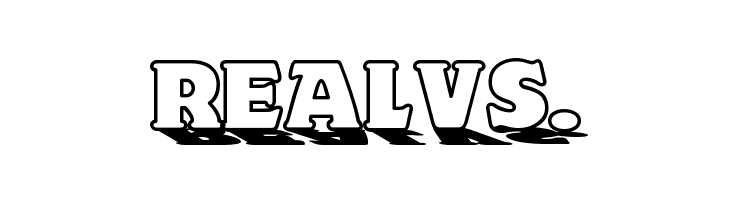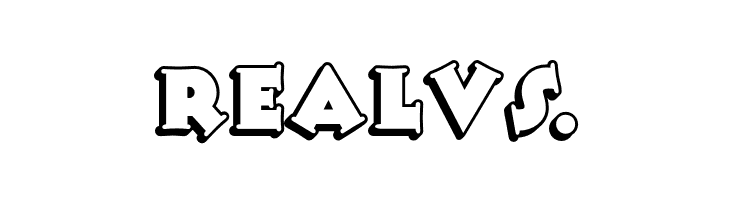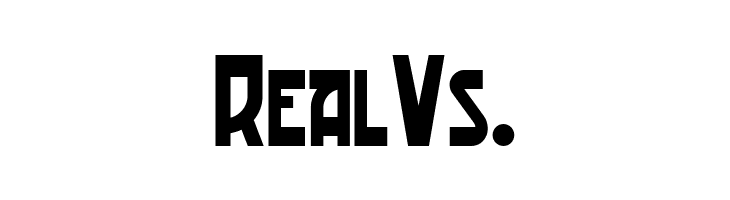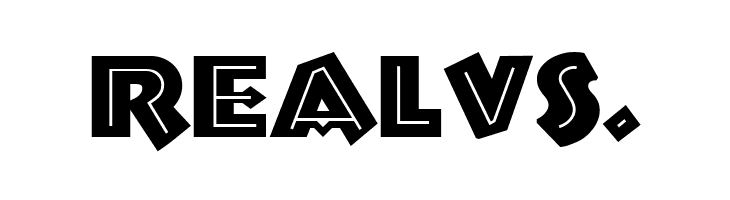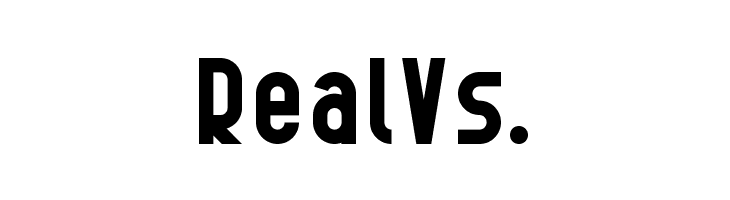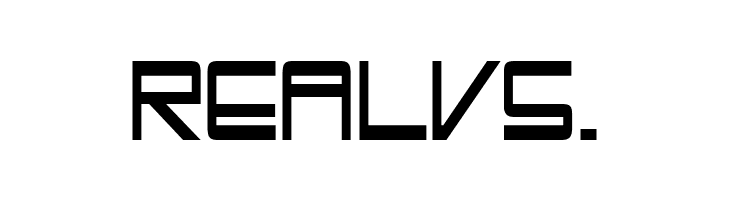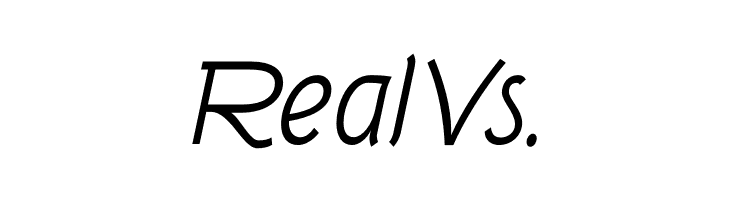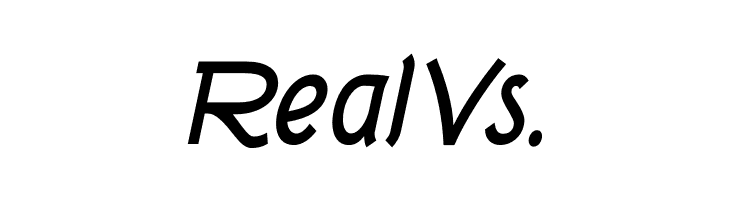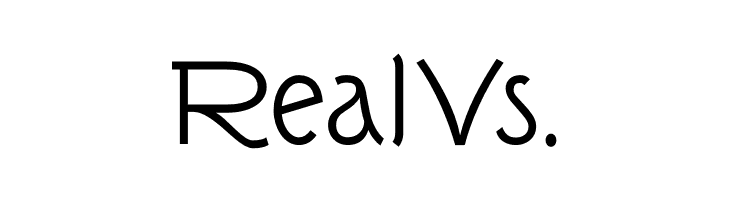
A bold, playful font with a 3D shadow effect and cartoonish style.
A playful, bold font with cartoonish strokes and strong outlines.
( Ruben Holthuijsen )
A modern, rounded font with a clean and approachable design.
( Ruben Holthuijsen )
A bold, rounded font with a playful and approachable style.
A bold, geometric font with sharp angles and a modern aesthetic.
A bold, italicized font with dynamic, slanted letterforms and strong visual impact.
A dynamic, italicized font with smooth, flowing strokes and a modern yet classic appeal.
A modern font with geometric and organic elements, offering a unique and approachable style.
( Fonts by dartcanada.tripod.com - Darren Rigby )
A bold, geometric font with a modern yet retro feel.
( Fonts by dartcanada.tripod.com - Darren Rigby )
A modern, geometric font with clean lines and a minimalist aesthetic.
( Fonts by dartcanada.tripod.com - Darren Rigby )
A bold, modern font with a condensed, geometric style.
( Fonts by dartcanada.tripod.com - Darren Rigby )
A modern, geometric font with a futuristic and cohesive design.
( Fonts by dartcanada.tripod.com - Darren Rigby )
A bold, geometric font with enclosed characters and a futuristic style.
( Fonts by dartcanada.tripod.com - Darren Rigby )
A bold, geometric font with boxed uppercase letters and consistent design.
A bold, playful font with a 3D shadow effect, perfect for eye-catching designs.
A bold, playful font with a 3D shadow effect, ideal for eye-catching designs.
A bold, geometric font with a modern and assertive style.
A bold, modern sans-serif font with a geometric and uniform structure.
A geometric, modern font with consistent stroke width and angular design.
A bold, condensed font with a geometric and modern design.
( Fonts by Arkandis Digital Foundry )
A bold, classic serif font with high contrast and pronounced serifs.
( Fonts by Arkandis Digital Foundry )
A bold, serif font with a classic and authoritative style, perfect for impactful headlines.
( Fonts by Arkandis Digital Foundry )
A bold, italic serif font with a modern and dynamic style.
( Fonts by Arkandis Digital Foundry )
A bold, italic serif font with a classic and elegant style.
( Fonts by Arkandis Digital Foundry )
A classic serif font with a bold, condensed style and elegant curves.
( Fonts by Arkandis Digital Foundry )
An elegant, italic serif font with a condensed width and moderate contrast.
( Fonts by Arkandis Digital Foundry )
A bold serif font with strong, classic features and modern versatility.
( Fonts by Arkandis Digital Foundry )
A bold, italic serif font with a classic and authoritative style.
( Fonts by Arkandis Digital Foundry )
An elegant serif italic typeface with smooth curves and high contrast.
An elegant italic serif font with smooth, flowing lines and a classic style.
( Fonts by Arkandis Digital Foundry )
A classic serif font with medium weight and elegant style.
( Fonts by Arkandis Digital Foundry )
A classic serif font with medium weight and elegant italic styling.
( Fonts by Arkandis Digital Foundry )
A classic serif font with elegant curves and a strong presence.
A bold, geometric font with a retro, angular design.